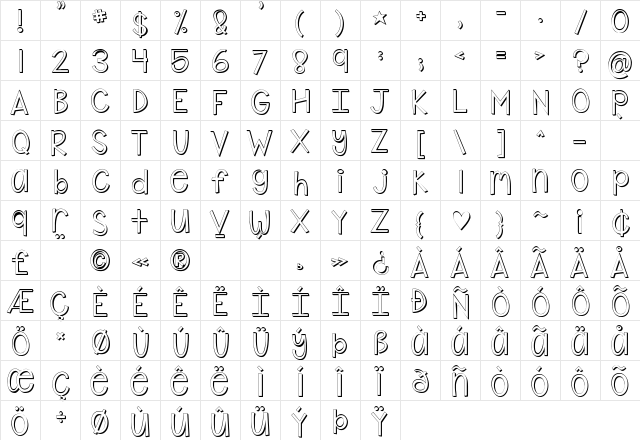
KG Shake it Off Popped Regular
| Foundry | Kimberly Geswein |
| Designer | Kimberly Geswein |
Design Context for KG Shake it Off Popped Typeface
KG Shake it Off Popped takes a measured approach to typography — its balanced proportions and neutral character make it a reliable workhorse for both digital and print work.